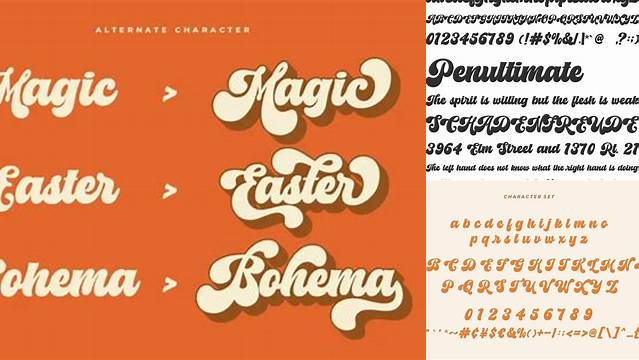
Free Chunky Retro Shadow Font Downloads
Hey guys! Are you looking to infuse your designs with a touch of nostalgia and a whole lot of personality? Look no further! The chunky retro shadow font is your ticket to creating eye-catching headlines, vintage-inspired logos, and designs that pop with three-dimensional flair. In this article, we'll dive into the world of chunky retro shadow fonts, explore their charm, and show you where to snag some fantastic free downloads. So, buckle up and let's get retro!
What Makes Chunky Retro Shadow Fonts So Special?
Chunky retro shadow fonts are more than just a typeface; they're a time machine that transports your designs back to the groovy eras of the 60s, 70s, and 80s. These fonts are characterized by their bold, blocky letterforms and a distinctive shadow effect that adds depth and dimension. The shadow gives the letters a 3D appearance, making them stand out and grab attention. This style is perfect for projects that need a vintage or playful feel, such as posters, flyers, album covers, and even website headers. The sheer boldness of these fonts makes them incredibly versatile, working well in both digital and print media. Think about iconic movie posters, vintage advertisements, and classic arcade games β many of them utilize a similar font style to evoke a sense of nostalgia and fun. The chunky nature of the letters ensures they remain legible even at a distance, making them ideal for headlines and titles. The added shadow effect isnβt just aesthetic; it provides contrast and separation, which enhances readability. Moreover, these fonts often come with unique quirks and imperfections that add to their retro charm. They might have slightly uneven edges or quirky letter shapes, giving them a handmade, authentic feel that perfectly complements the retro aesthetic. Using a chunky retro shadow font is like adding a secret ingredient to your design β it instantly infuses it with character and a sense of history. Whether you're working on a branding project, a personal hobby, or a professional campaign, these fonts can help you create a memorable and impactful visual statement. They are a fantastic way to stand out from the crowd and add a touch of whimsy and nostalgia to your work. Plus, the bold and playful nature of these fonts makes them universally appealing, capturing the attention of audiences young and old. So, if you're aiming for a design that's both stylish and timeless, a chunky retro shadow font is definitely the way to go.
Key Features of Chunky Retro Shadow Fonts
When we talk about chunky retro shadow fonts, it's not just about thick letters and a shadow effect. There's a whole array of features that make these fonts so distinctive and appealing. First and foremost, the thickness of the letterforms is a defining characteristic. These fonts are bold and substantial, commanding attention with their robust presence. The heavy strokes give them a solid, grounded feel, making them perfect for headlines and titles where you want to make a strong statement. Then, of course, there's the shadow effect. This isn't just a simple drop shadow; it's an integral part of the font's design, often mimicking the look of vintage letterpress printing or hand-drawn signage. The shadow adds depth and dimension, creating a 3D effect that makes the letters pop off the page or screen. This effect can be achieved in various ways, from a subtle, soft shadow to a more pronounced, hard-edged one, giving designers flexibility in how they use the font. Another crucial feature is the retro aesthetic. These fonts draw inspiration from the design styles of the mid-20th century, particularly the 1960s, 70s, and 80s. Think vintage posters, old-school arcade games, and classic advertising β these fonts capture the essence of those eras. They often feature rounded edges, playful curves, and a general sense of fun and informality. The retro vibe is what makes them so versatile, allowing them to be used in a wide range of projects, from branding and logos to posters and social media graphics. Beyond the visual aspects, chunky retro shadow fonts also offer a sense of nostalgia. They evoke memories of bygone eras, creating an emotional connection with the viewer. This can be particularly effective in marketing and branding, where you want to tap into a sense of familiarity and authenticity. People are naturally drawn to things that remind them of happier times, and these fonts can help you achieve that emotional resonance. Furthermore, these fonts often come with a unique character and personality. They're not your standard, run-of-the-mill typefaces; they have quirks and idiosyncrasies that make them stand out. This might be in the form of unusual letter shapes, subtle imperfections, or distinctive details. This personality is what makes them so engaging and memorable. Finally, the versatility of these fonts is a key feature. While they are perfect for retro-themed projects, they can also be used in more modern designs to add a touch of vintage flair. They work well in both digital and print media and can be paired with a variety of other fonts to create a cohesive and visually appealing design. So, when you're choosing a chunky retro shadow font, you're not just picking a typeface; you're selecting a design element that is packed with history, personality, and visual impact.
Tips for Using Chunky Retro Shadow Fonts Effectively
Now that you've got your hands on some fantastic chunky retro shadow fonts, it's time to put them to work! But like any design element, these fonts are most effective when used thoughtfully and strategically. Here are some tips to help you make the most of your new retro finds. First and foremost, consider the context of your project. Chunky retro shadow fonts are inherently bold and attention-grabbing, so they're best suited for headlines, titles, and other prominent display text. Using them for body text can be overwhelming and make your design look cluttered. Think about where the font will be seen and what message you're trying to convey. If you're aiming for a vintage vibe, these fonts are a natural fit. But they can also be used in more modern designs to add a touch of personality and flair. Pairing is key when it comes to using chunky retro shadow fonts. Because they are so dominant, it's important to choose a secondary font that complements them without competing for attention. A clean, simple sans-serif font often works well, providing a nice contrast to the bold, textured retro font. You might also consider a classic serif font, but be mindful of creating too much visual noise. Experiment with different combinations to see what works best for your design. The size and spacing of your text are also crucial factors. Chunky fonts can appear even bulkier when set in large sizes, so be sure to adjust the letter spacing and line height to maintain readability. A little extra space between letters can help prevent the text from looking too cramped. Similarly, the line height should be generous enough to ensure that the lines of text don't collide, especially if you're using a font with a pronounced shadow effect. Color plays a significant role in how your chunky retro shadow font appears. Bold, vibrant colors can enhance the retro vibe, while more muted tones can create a more subtle and sophisticated look. Consider using contrasting colors to make the font stand out, or opt for a monochromatic palette for a more cohesive design. The color of the shadow itself can also make a difference β experiment with different shades and hues to see what effect they create. Don't be afraid to experiment with effects beyond the built-in shadow. Adding a subtle gradient, texture, or outline can further enhance the font's visual appeal. However, be careful not to overdo it β too many effects can make the font look busy and detract from its overall impact. Sometimes, simplicity is the best approach. Less is more is a good rule of thumb when using chunky retro shadow fonts. Because they are so visually striking, you don't need to use them excessively. A single headline or a few strategically placed words can be enough to make a statement. Overusing the font can dilute its impact and make your design look cluttered. Finally, pay attention to the overall balance of your design. Make sure that the chunky retro shadow font is integrated seamlessly with the other elements, such as images, illustrations, and graphics. The font should enhance the overall composition, not overpower it. By following these tips, you can harness the power of chunky retro shadow fonts to create designs that are both visually stunning and effective in communicating your message.
Let's Get Retro!
So, there you have it! A deep dive into the wonderful world of chunky retro shadow fonts. These fonts are a fantastic way to add a touch of vintage charm and personality to your designs. Whether you're working on a poster, a logo, or a website, these fonts can help you create a bold and memorable visual statement. Remember to explore the various resources for free downloads, experiment with different styles, and use the tips we've discussed to make the most of these eye-catching typefaces. Now, go forth and infuse your projects with the groovy vibes of retro design! Have fun creating, guys, and let your imagination run wild!